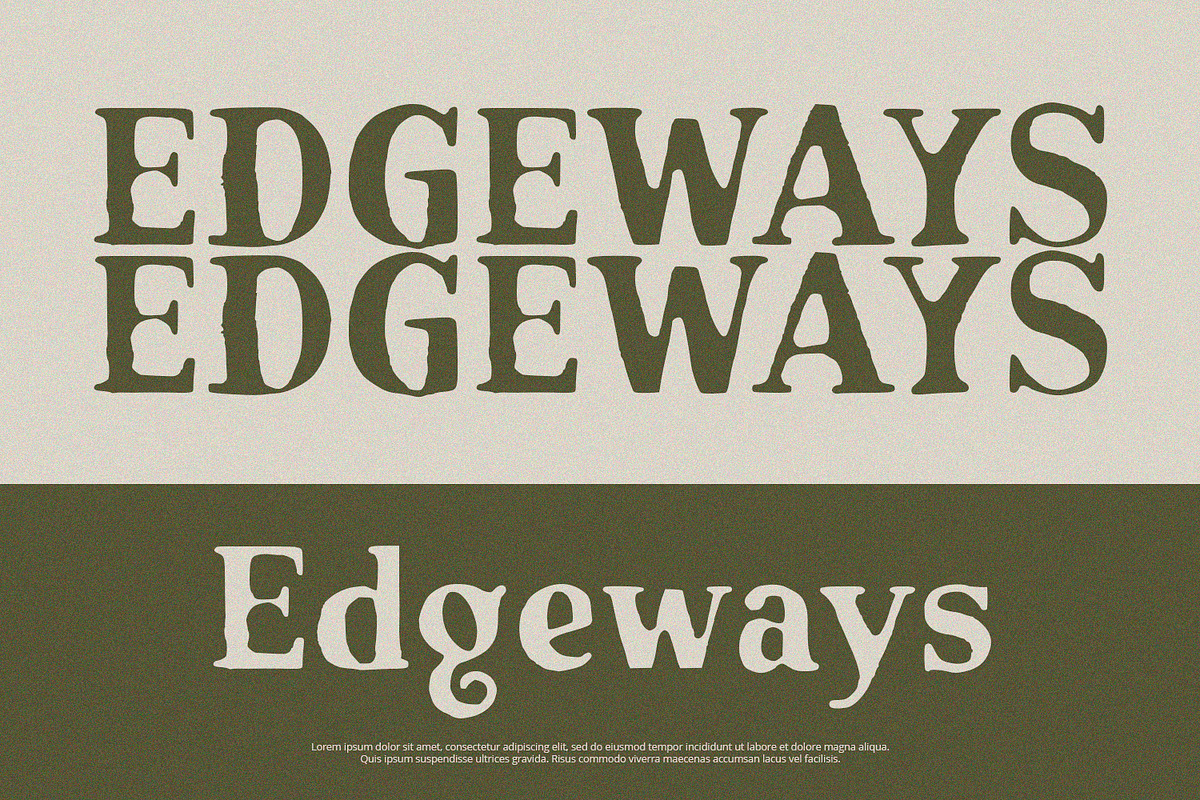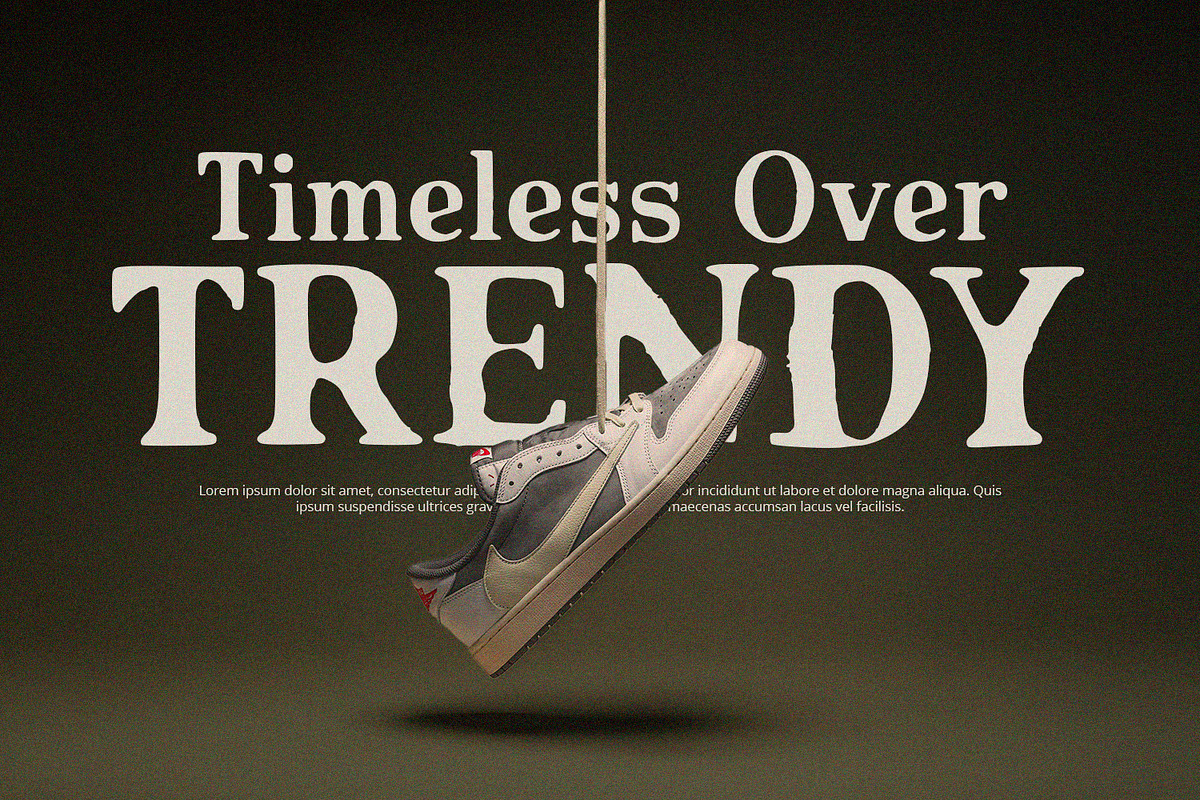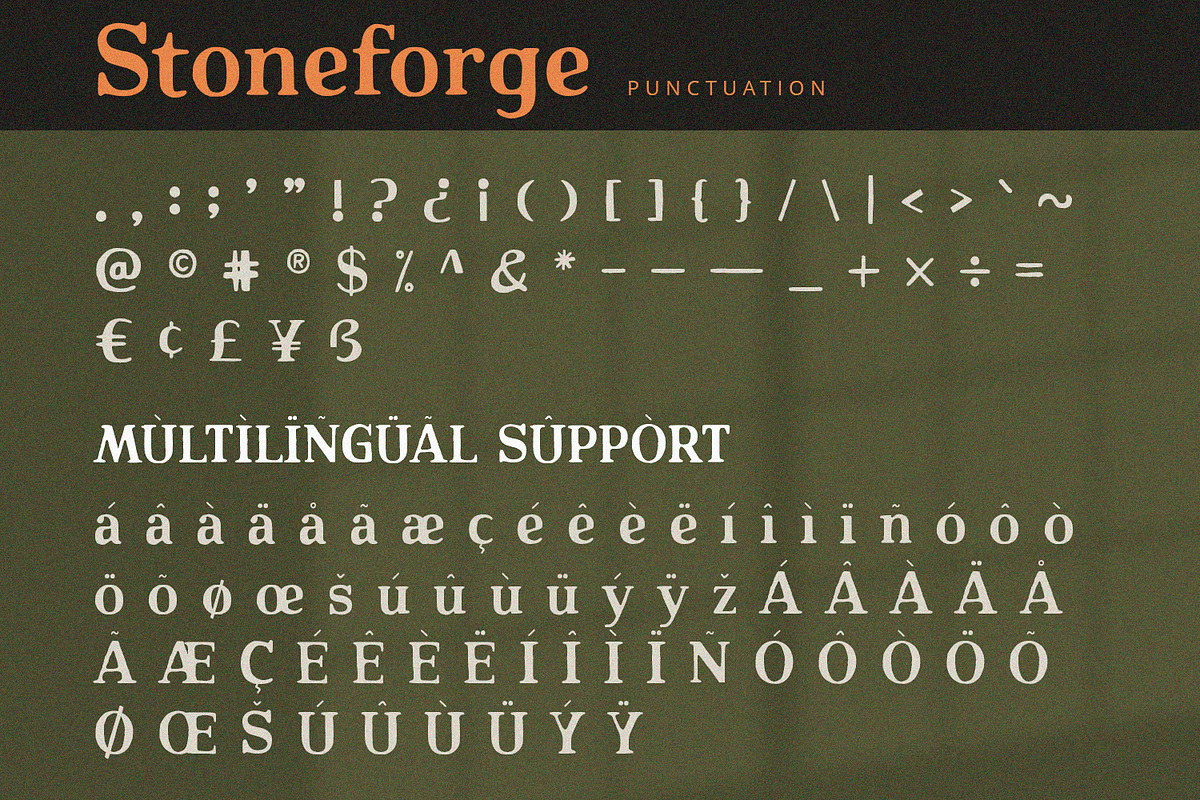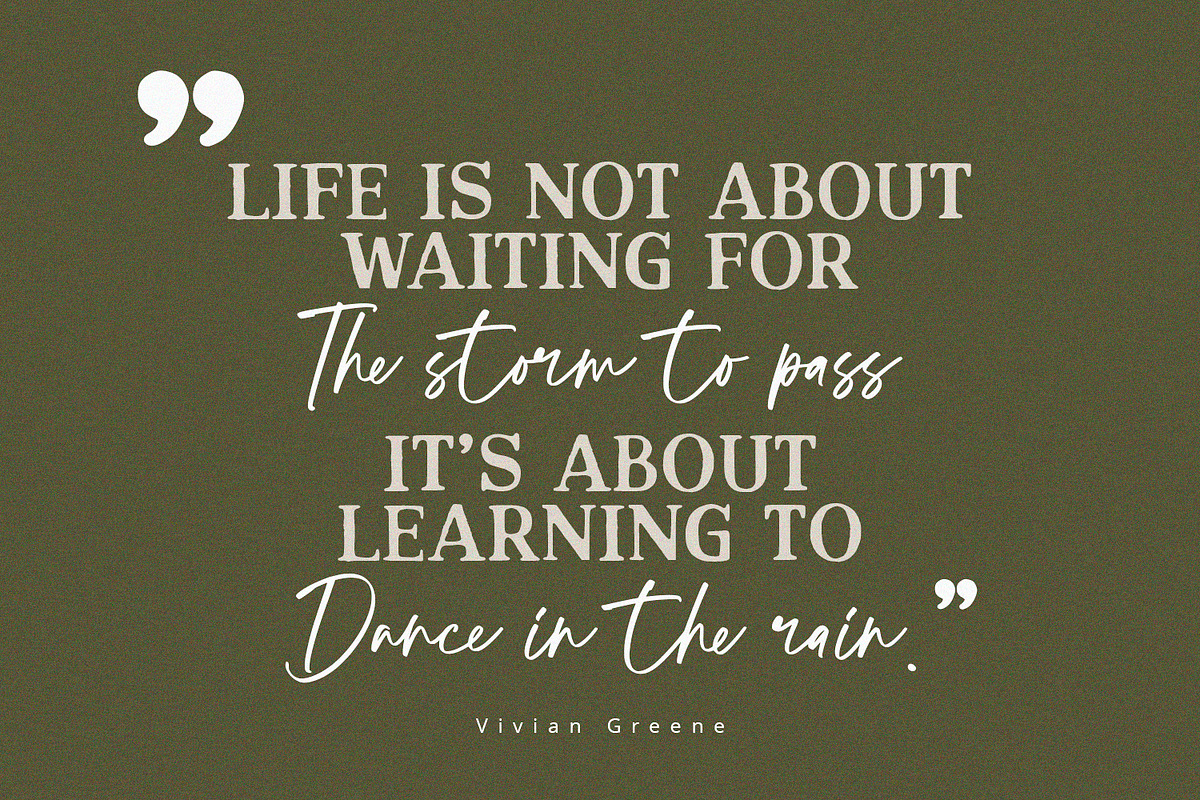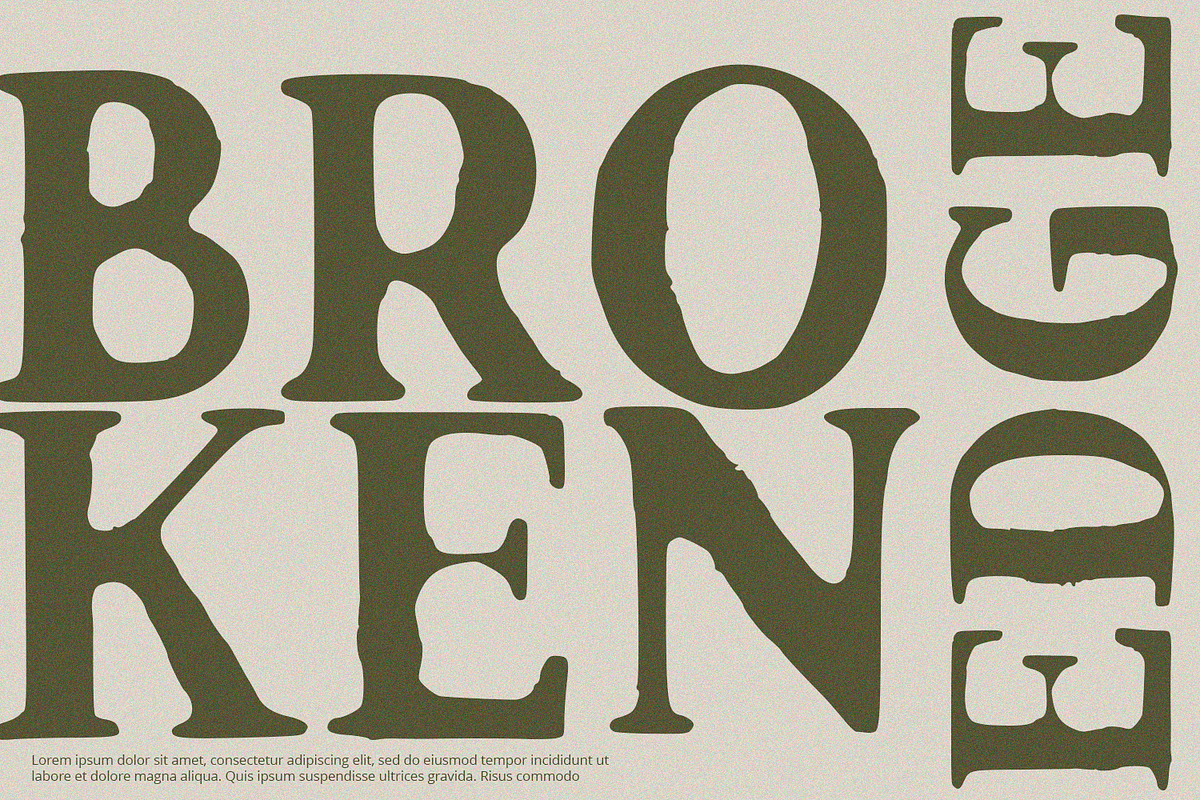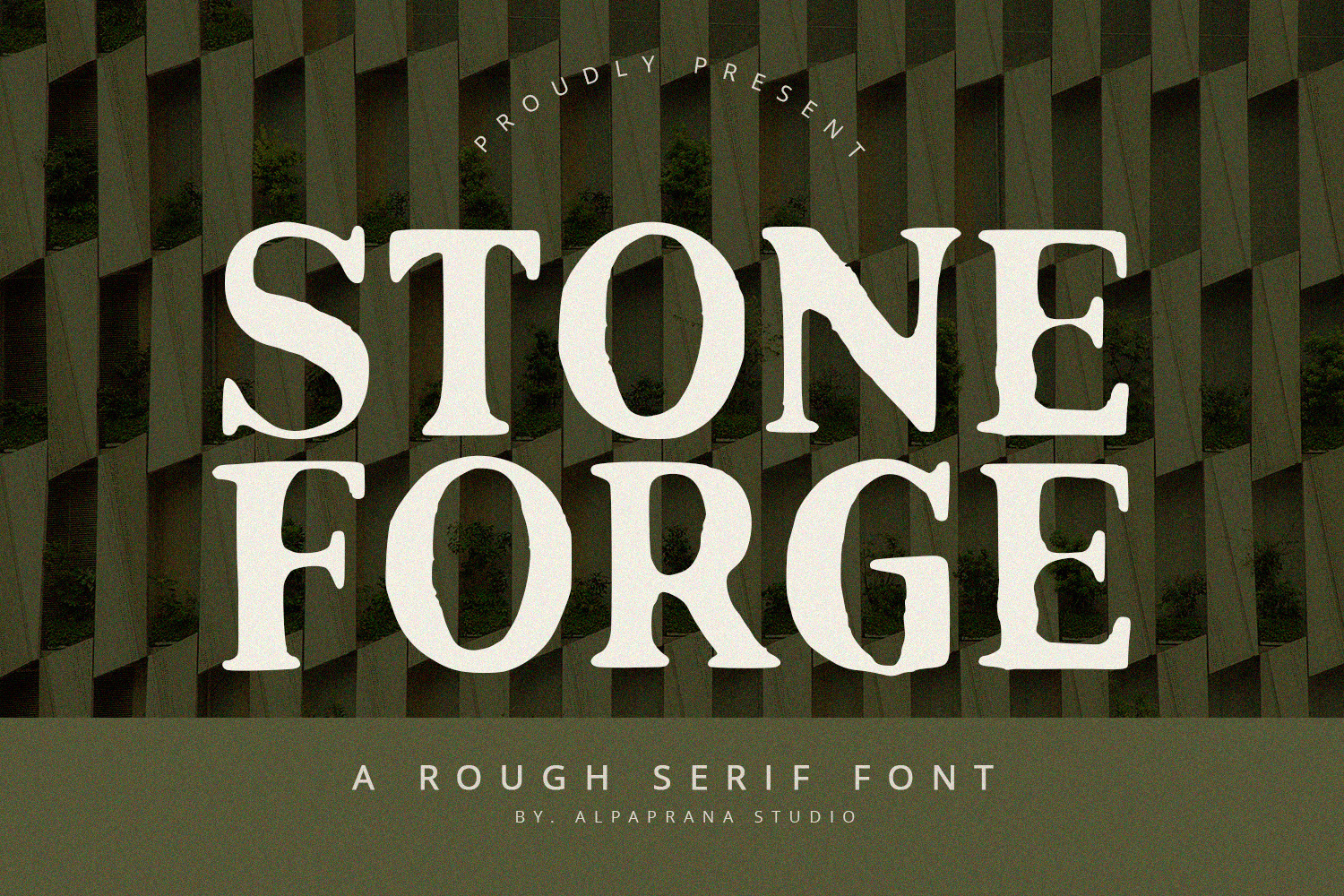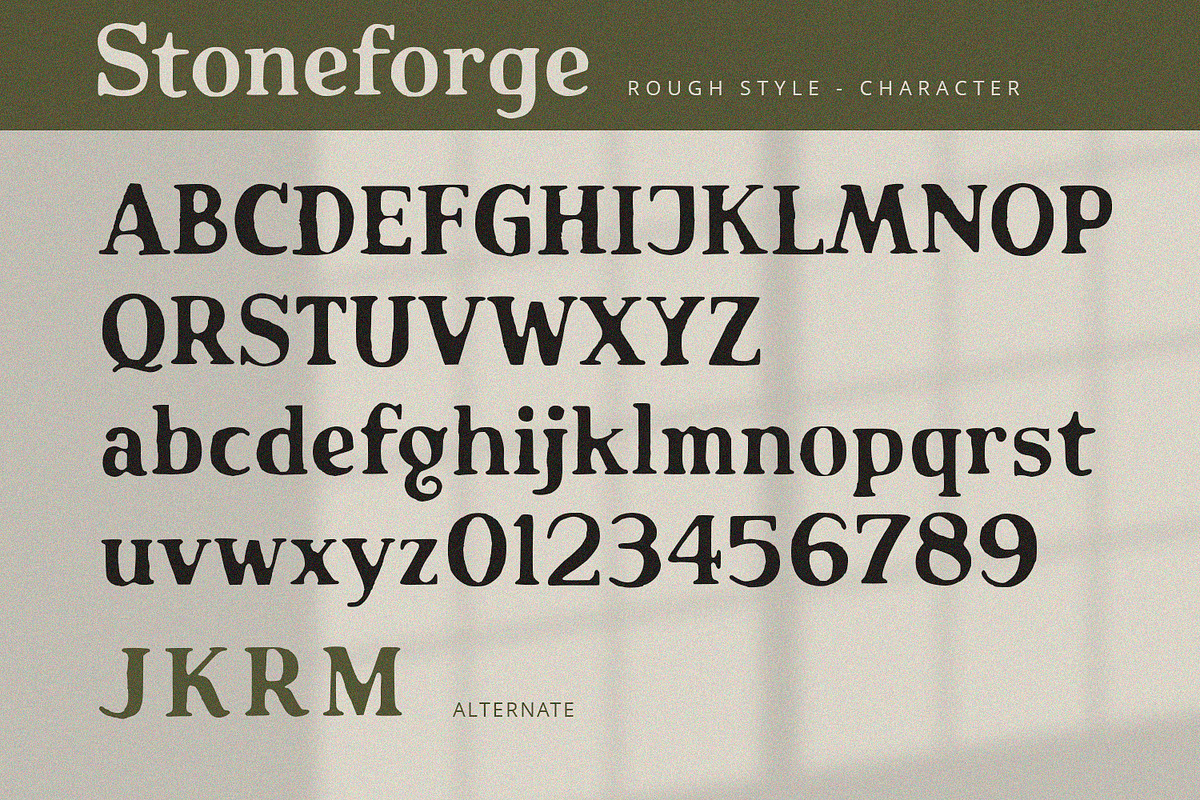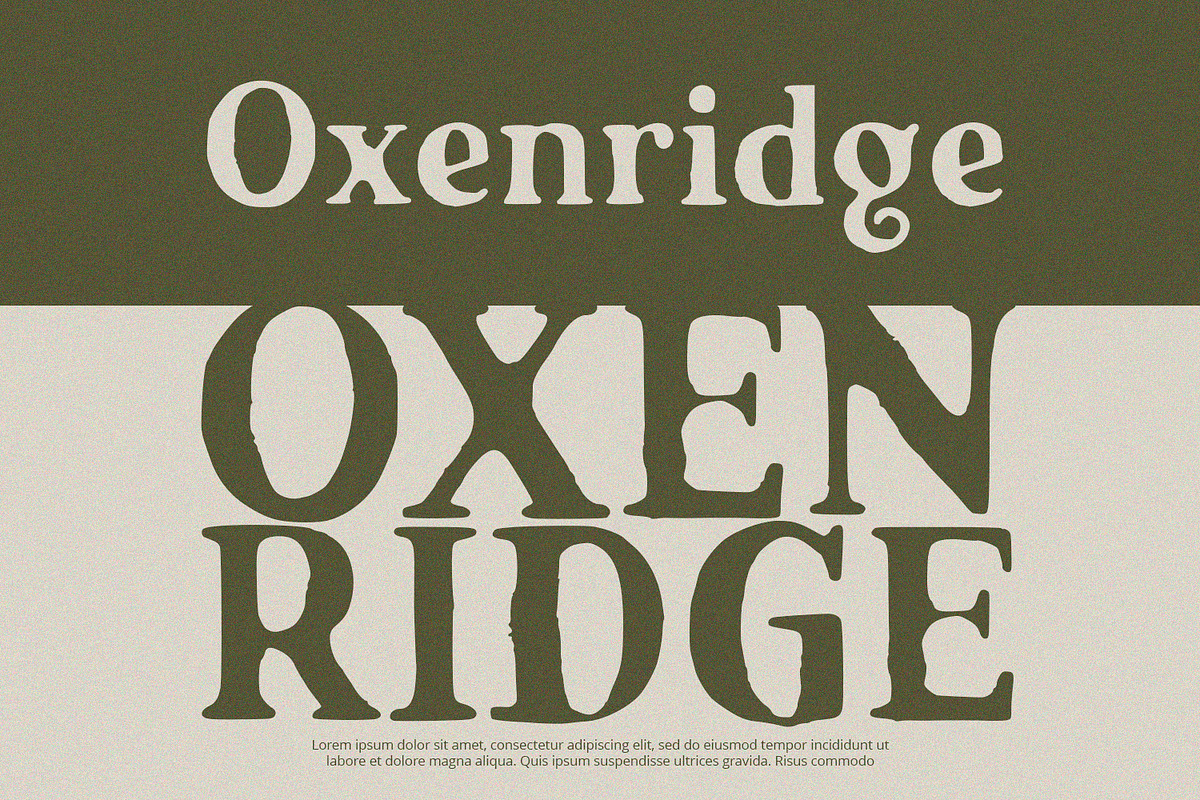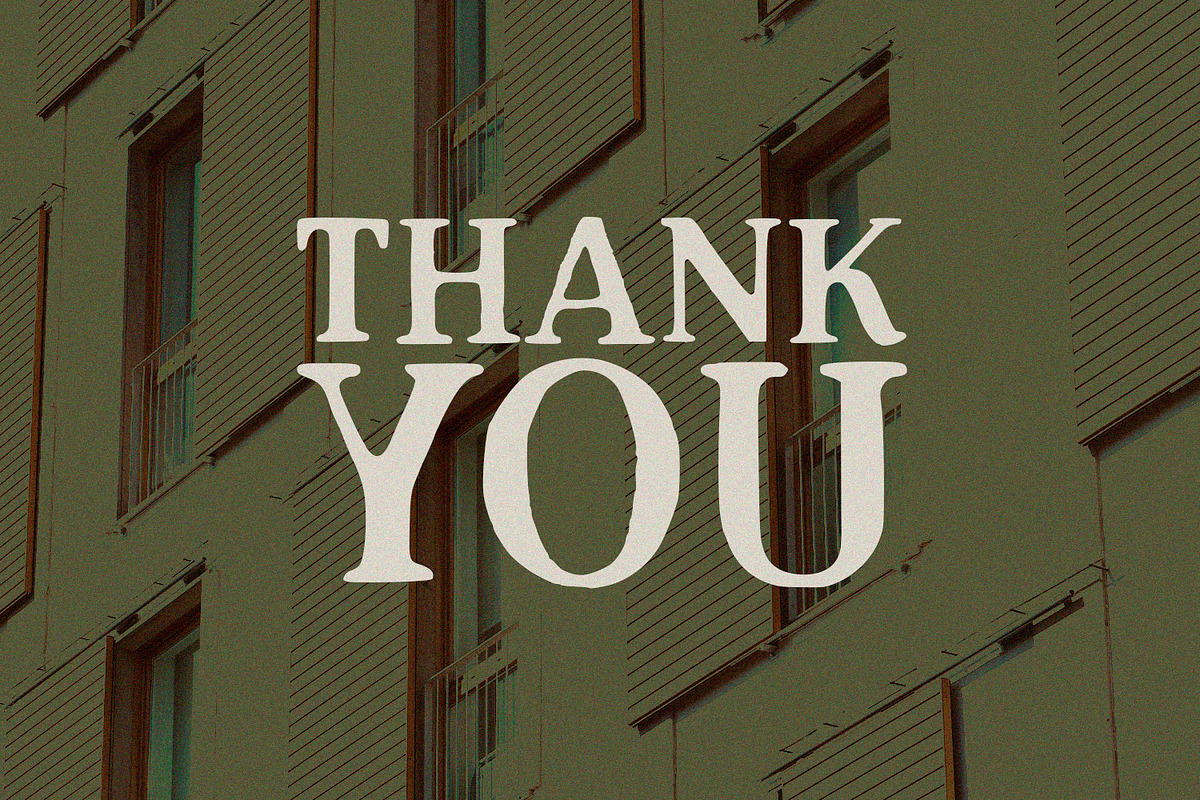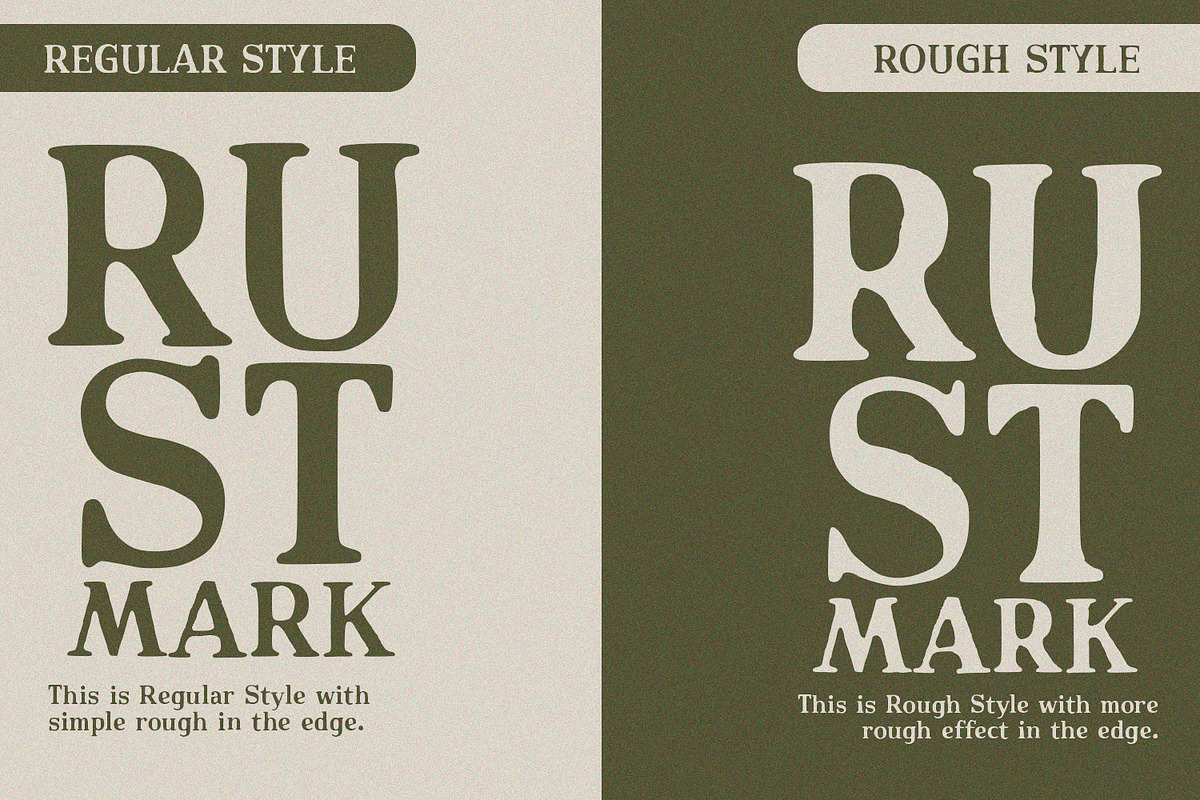
Stoneforge - Serif Font
Stoneforge is rough serif font with elegant and classic feels. It will be perfectly used for Branding, Logo Design, Lettering, Logotype, Clothing, Poster, magazine, packaging, posters, shopping bags, t-shirts, book covers, photography, special events and other design project.